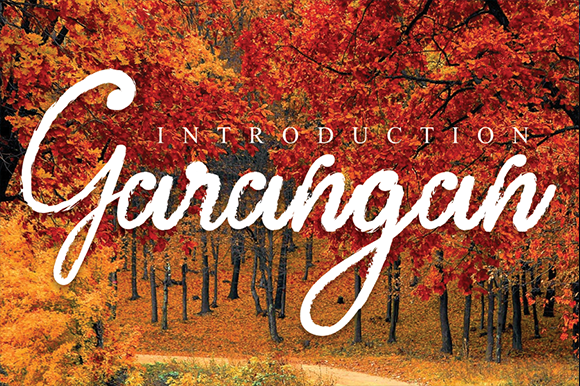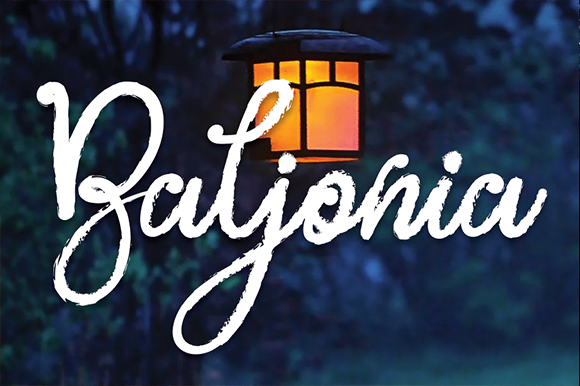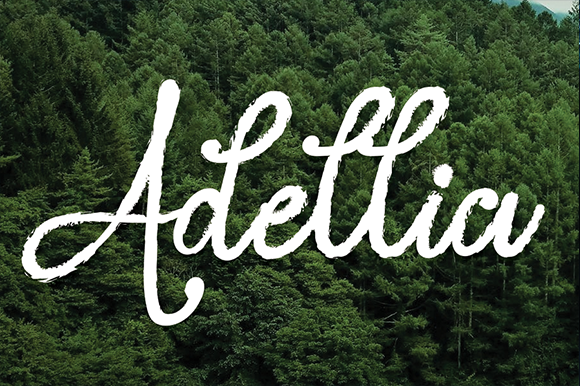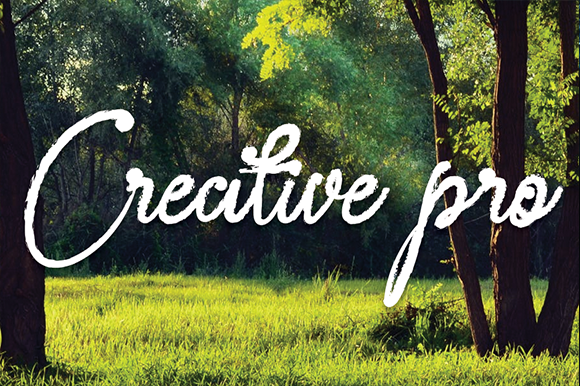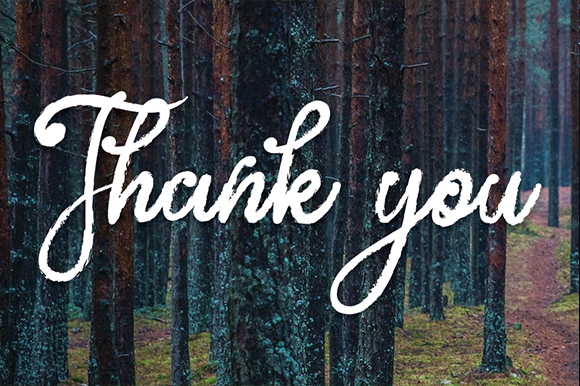
Garangan Font
About Garangan Font
Garangan embodies fun, quirkiness and authenticity. This enchanting handwritten font will turn any creative idea into a true standout.